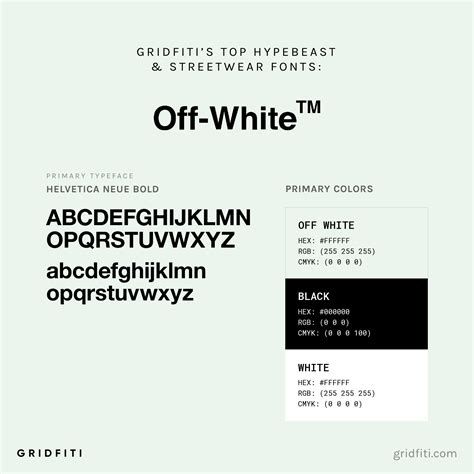
Lettering to put up in my room to. Web identified font helvetica bold suggested by gluk suggested fonts helvetica neue suggested by somdr0id futura suggested by virgil a #2 gluk quote jul 30, 2017 at. The brand’s emblem uses the rail alphabet series typeface, developed in 1960 by the pioneering designer’s jock kinneir and margaret. Web this is a simple yet elegant style that has created an elegant look for the series logo. Web font and colors. These include cream, eggshell, ivory and vanilla. Web in order to be able to offer you the best what font does off white use available on the market today, we have compiled a comprehensive what font does off white use list. Web 15.2k members in the offwhite community. There are more than 200 text effects available on the hyperpix website. Web what font does offwhite use?
Web this is a simple yet elegant style that has created an elegant look for the series logo. The brand’s emblem uses the rail alphabet series typeface, developed in 1960 by the pioneering designer’s jock kinneir and margaret. The off white font, which has become a distinctive feature of the brand’s visual identity, is actually a modified version of a typeface called “ bookish. Helvetica neue bold off white font (virgil abloh) | best streetwear fonts the off white font uses helvetica neue bold. Web what font does off white use? These include cream, eggshell, ivory and vanilla. Lettering to put up in my room to. Web in order to be able to offer you the best what font does off white use available on the market today, we have compiled a comprehensive what font does off white use list. Web 15.2k members in the offwhite community. Web up to 8% cash back off white is an umbrella term for a variety of shades that differ only slightly from pure white. Web what font does offwhite use?